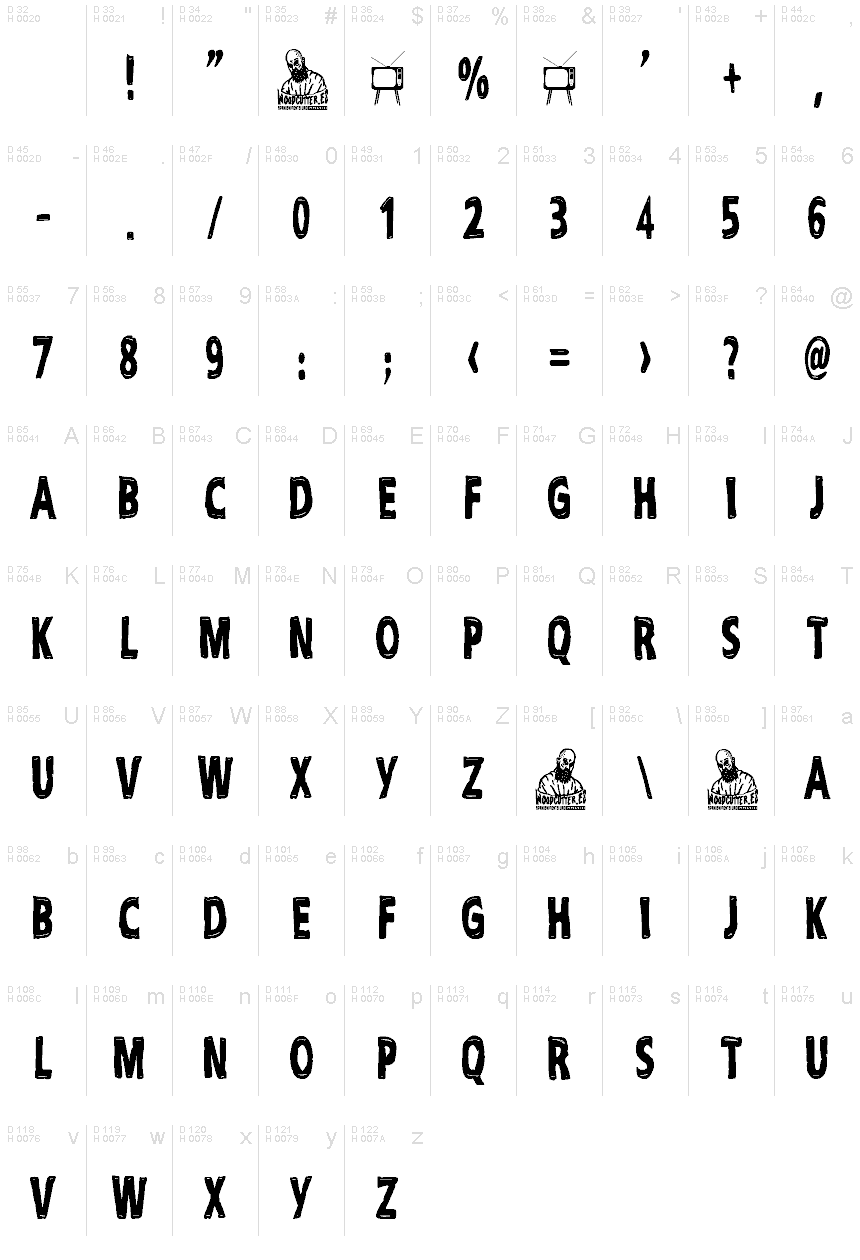
Cult Tv Show
Cult Tv Show font is a free cartoon display typeface designed by Woodcutter in a condensed width. Its textured and rugged distressed appearance has an old-school vintage feel that adds energetic character which appeals to a modern audience. Every letter in this striking font looks like they were hand-drawn, making them pop even more in compositions.
The eye-catching style of Cult Tv Show makes it suitable for posters, book covers, publishing projects, explainer video titles, social media posts, and kids’ educational apps. Use it on packaging or branding identity designs to get remarkable results for your clients or in your artwork!